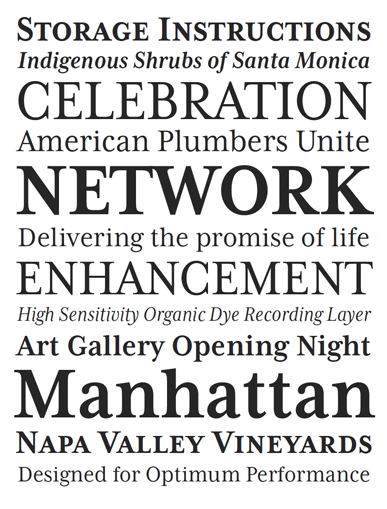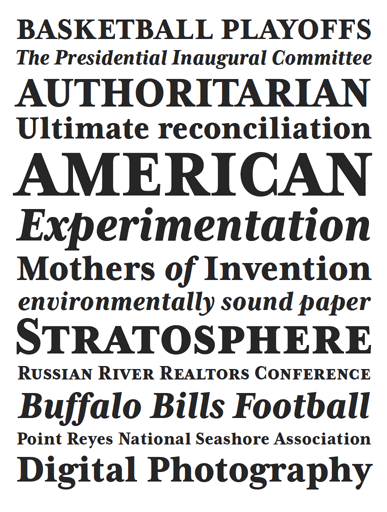
Mrs Eaves XL Serif & Narrow
Originally designed in 1996, Mrs Eaves was Zuzana Licko's first attempt at the design of a traditional typeface. It was styled after Baskerville, the famous transitional serif typeface designed in 1757 by John Baskerville in Birmingham, England. Mrs Eaves was named after Baskerville's live in housekeeper, Sarah Eaves, whom he later married.
One of Baskerville's intents was to develop typefaces that pushed the contrast between thick and thin strokes, partially to show off the new printing and paper making techniques of his time. As a result his types were often criticized for being too perfect, stark, and difficult to read.
Licko noticed that subsequent interpretations and revivals of Baskerville had continued along the same path of perfection, using as a model the qualities of the lead type itself, not the printed specimens. Upon studying books printed by Baskerville at the Bancroft Library in Berkeley, Licko decided to base her design on the printed samples which were heavier and had more character due to the imprint of lead type into paper and the resulting ink spread. She reduced the contrast while retaining the overall openness and lightness of Baskerville by giving the lower case characters a wider proportion. She then reduced the x-height relative to the cap height to avoid increasing the set width.
There is something unique about Mrs Eaves and it's difficult to define. Its individual characters are at times awkward looking�the W being narrow, the L uncommonly wide, the flare of the strokes leading into the serifs unusually pronounced. Taken individually, at first sight some of the characters don�t seem to fit together. The spacing is generally too loose for large bodies of text, it sort of rambles along. Yet when used in the right circumstance it imparts a very particular feel that sets it clearly apart from many likeminded types. It has an undefined quality that resonates with people. This paradox (imperfect yet pleasing) is perhaps best illustrated by design critic and historian Robin Kinross who has pointed out the limitation of the "loose" spacing that Licko employed, among other things, yet simultaneously designated the Mrs Eaves type specimen with an honorable mention in the 1999 American Center for Design competition. Proof, perhaps, that type is best judged in the context of its usage.
Even with all its shortcomings, Mrs Eaves has outsold all Emigre fonts by twofold. On MyFonts, one of the largest on-line type sellers, Mrs Eaves has been among the 20 best selling types for years, listed among such classics as Helvetica, Univers, Bodoni and Franklin Gothic. Due to its commercial and popular success it has come to define the Emigre type foundry.
While Licko initially set out to design a traditional text face, we never specified how Mrs Eaves could be best used. Typefaces will find their own way. But if there's one particular common usage that stands out, it must be literary�Mrs Eaves loves to adorn book covers and relishes short blurbs on the flaps and backs of dust covers. Trips to bookstores are always a treat for us as we find our Mrs Eaves staring out at us from dozens of book covers in the most elegant compositions, each time surprising us with her many talents.
Aiga booklet cover. Design by Michael Vanderbyl.
And Mrs Eaves feels just as comfortable in a wide variety of other locales such as CD covers (Radiohead's Hail to the Thief being our favorite), restaurant menus, logos, and poetry books, where it gives elegant presence to short texts.
Radiohead Hail to the Thief Special Edition cover. Design by Stanley Donwood.
One area where Mrs Eaves seems less comfortable is in the setting of long texts, particularly in environments such as the interiors of books, magazines, and newspapers. It seems to handle long texts well only if there is ample space. A good example is the book /CD/DVD release The Band: A Musical History published by Capitol Records. Here, Mrs Eaves was given appropriate set width and generous line spacing. In such cases its wide proportions provide a luxurious feel which invites reading. Economy of space was not one of the goals behind the original Mrs Eaves design. With the introduction of Mrs Eaves XL, Licko addresses this issue.
Since Mrs Eaves is one of our most popular typefaces, it's not surprising that over the years we've received many suggestions for additions to the family. The predominant top three wishes are: greater space economy; the addition of a bold italic style; and the desire to pair it with a sans design. The XL series answers these requests with a comprehensive set of new fonts including a narrow, and a companion series of Mrs Eaves Sans styles to be released soon.
The main distinguishing features of Mrs Eaves XL are its larger x-height with shorter ascenders and descenders and overall tighter spacing. These additional fonts expand the Mrs Eaves family for a larger variety of uses, specifically those requiring space economy. The larger x-height also allows a smaller point size to be used while maintaining readability.
Mrs Eaves XL also has a narrow counterpart to the regular, with a set width of about 92 percent which fulfills even more compact uses. At first, this may not seem particularly narrow, but the goal was to provide an alternative to the regular that would work well as a compact text face while maintaining the full characteristics of the regular, rather than an extreme narrow which would be more suitable for headline use.
Four years in the making, we're excited to finally let Mrs Eaves XL find its way into the world and see where and how it will pop up next.
1. The Original Mrs Eaves Roman
Mrs Eaves Roman was the starting point for both Mrs Eaves XL Regular and XL Narrow.
2. Mrs Eaves Roman x-height scaled 130%
The first step was to scale the x-height up while maintaining the length of the ascenders and descenders.
3. Mrs Eaves XL adjustments
The stem and stroke weight of the scaled characters was then reduced to match the original Mrs Eaves Roman. The extra weight was removed from the outside of the characters to preserve the width of the counters.
4. Mrs Eaves XL Regular
Final version with narrower width and higher x-height than the original Mrs Eaves Roman resulting in higher legibility at small sizes and increased space economy.
5. Mrs Eaves XL Narrow
The Mrs Eaves Roman x-height was stretched vertically to match the height of the 130% scaled height while preserving the stem weight of the original. These results, being too condensed, were then interpolated with Mrs Eaves XL Regular to form the final narrow version.
6. Top to bottom: Original Mrs Eaves Roman, Mrs Eaves XL Regular, Mrs Eaves XL Narrow, shown at the same point size.